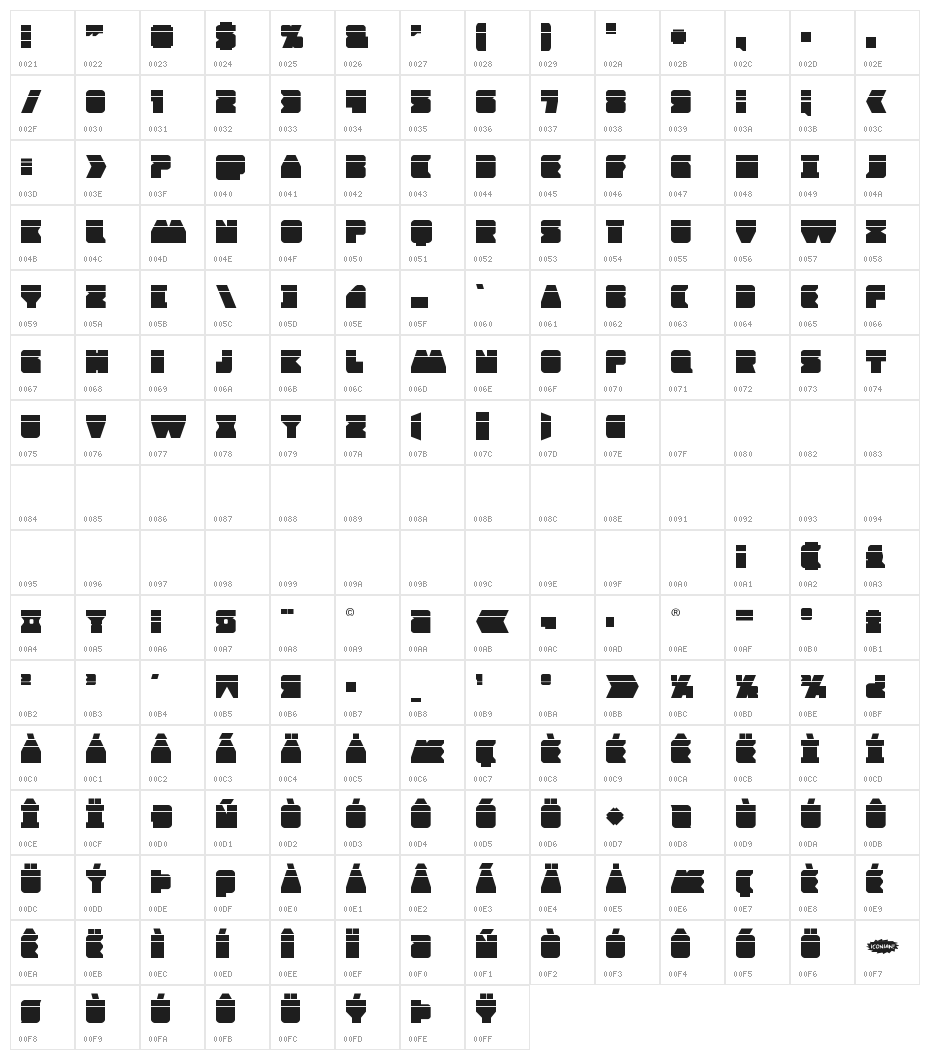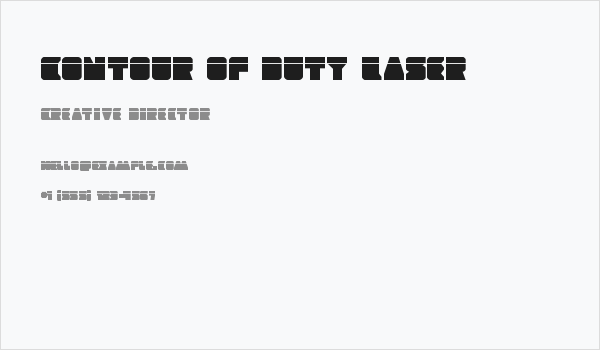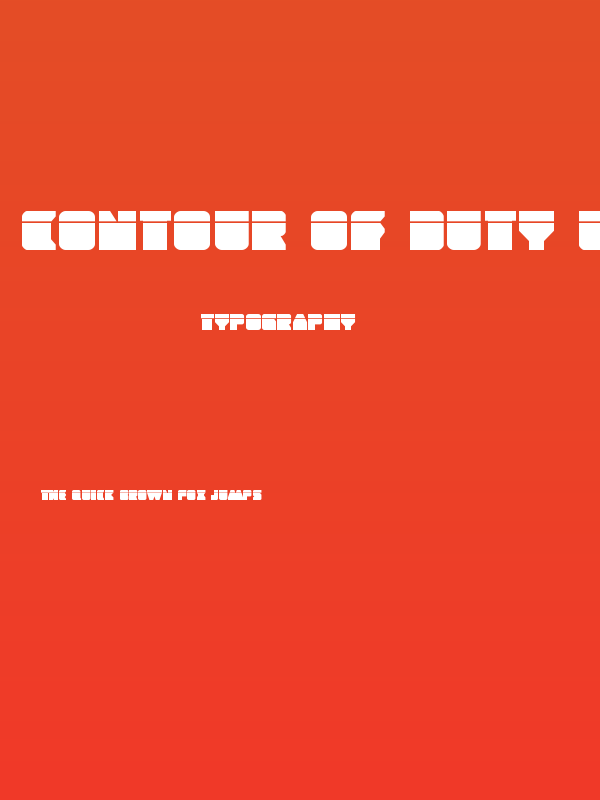
Contour of Duty Laser Font
Contour of Duty Laser Description
This font features a bold, geometric design with a distinct stencil-like appearance. The characters are constructed with solid, blocky shapes, creating a futuristic and industrial aesthetic. Each letter and number is segmented, giving the impression of being cut out or laser-etched. The font maintains a consistent thickness throughout, emphasizing its strong and impactful presence. The unique style makes it stand out, with sharp angles and a uniform width that contribute to its modern and edgy look.
| Proposed Projects | Ideal for projects that require a modern, industrial feel such as tech branding, video game titles, posters, and signage. |